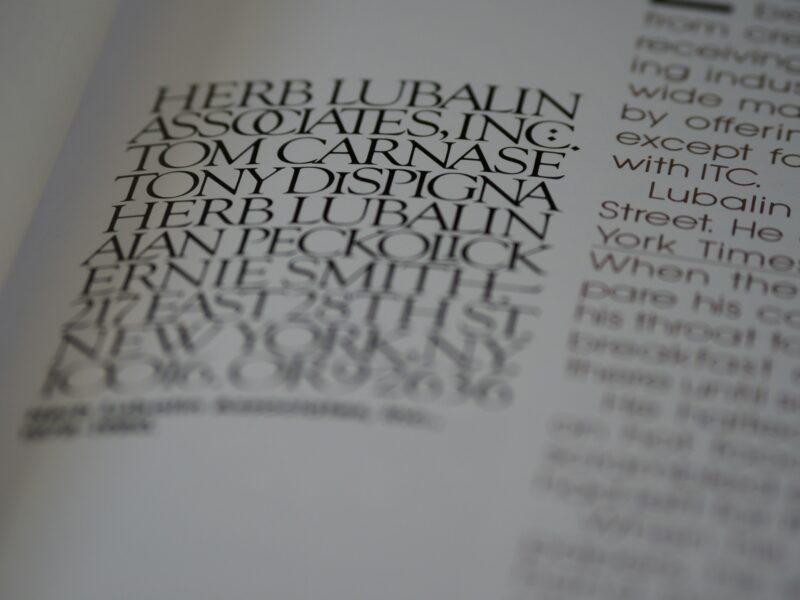
The Influence of Font Size and Weight on Cognitive Load
As designers, we obsess over kerning, color palettes and grids, but how often do we stop to consider how our typography choices may tax the readers’ brains?
Lately, I have been thinking about cognitive load and how it comes into play with design. It turns out that font size and weight play a much bigger role in user comprehension than we assume.
Whether building out a UI dashboard or setting editorial spreads, how you handle type can support the reader’s flow or trip them up. Therefore, it is vitally important to explore how font size and weight influence the way people engage with your work.
What Is Cognitive Load?
Cognitive load is the mental effort someone has to use to understand and retain information. When working on a design project, you are essentially deciding how easy or difficult it will be for someone to process what is in front of them.
There are a few different types of cognitive load, but the one that you should ultimately focus on is the extraneous kind. This unnecessary strain comes from confusing layouts or clunky typography. The more noise you create visually, the harder it will be for a user’s brain to work to stay engaged.
It is important to keep in mind how someone processes information, especially when designing for adults. Research shows that memory, attention and processing speed start declining around age 30 or earlier. Adding to the fact that the global population aged 60 and older will increase by 40% by 2050, it is clear that designing with cognitive ease is a must.
The good news is that typography can lighten the cognitive load. When used intentionally, it can reduce mental friction and make it easier for users of all ages to take in and enjoy the content you create.
Font Size and Its Cognitive Impact
Readability is a critical factor in design, and font size is often the first thing that comes to mind because it directly affects how easily someone can make sense of the content. Type size has a significant impact on how the brain interprets information.
Studies have found that individuals process font dimensions between 17 and 161 points more fluently than sizes outside that range. Text that is too small can slow down reading and increase visual strain. On the other hand, text that is too large can break up the natural flow and increase the load on an individual’s working memory.
Fluency matters because it impacts the rate at which someone can read and comprehend the text. When readers can recognize words quickly and automatically, it frees up cognitive resources for understanding.
This is where font size intersects with reading rhythm. A comfortable size allows for a natural pace, which gives the brain space to focus on meaning rather than mechanics.
When inconsistent or poorly sized text interferes with rhythm, it creates mental friction that chips away at memory and understanding. Even if you reduce body text to fit more on a page, it can still have a measurable effect on how well readers soak in the information.
The Role of Font Weight in Processing
Font weight is a stylistic choice on the surface, but is also functional in how users take in information. The thickness of letterforms shapes how efficiently people process what they are reading.
Heavier weights can draw attention and establish emphasis, especially in headlines, labels and calls to action. Yet, when used excessively, the boldness can overwhelm the eye, slow reading, and create visual fatigue. Conversely, lighter ones can feel refined and modern but may compromise legibility at smaller sizes or lower-contrast backgrounds.
Font weight also impacts how the brain prioritizes information. When the hierarchy is clear, readers spend less time figuring out what to read first and more time absorbing the content. That reduction in decision-making lightens the cognitive load and improves flow.
Attention span is another factor at play. More weight can signal importance or urgency, guiding focus when used appropriately. Boldness is often associated with strength and power, but you can lose that effect when everything is heavy.
Considering these factors, it is essential to use it as a tool for guiding readers and supporting comprehension. The key is balance — using weight to create structure and flow on the page.
The Interplay Between Font Size and Weight
I often treat font size and weight as separate design variables, but balancing these elements becomes crucial when cognitive processing is at play.
Consider a scenario where large, bold headlines dominate a page. While they may grab attention, they can overshadow the content and make it harder for readers to focus on the main message.
The same goes for lightweight fonts of small sizes on mobile screens. Smartphones already have limited space to display text, so you must choose the right size carefully.
While designing, it is easy to become swept up in the aesthetics. However, taking the time to understand the decisions you make can shape attention and how well it works across audiences and industries.